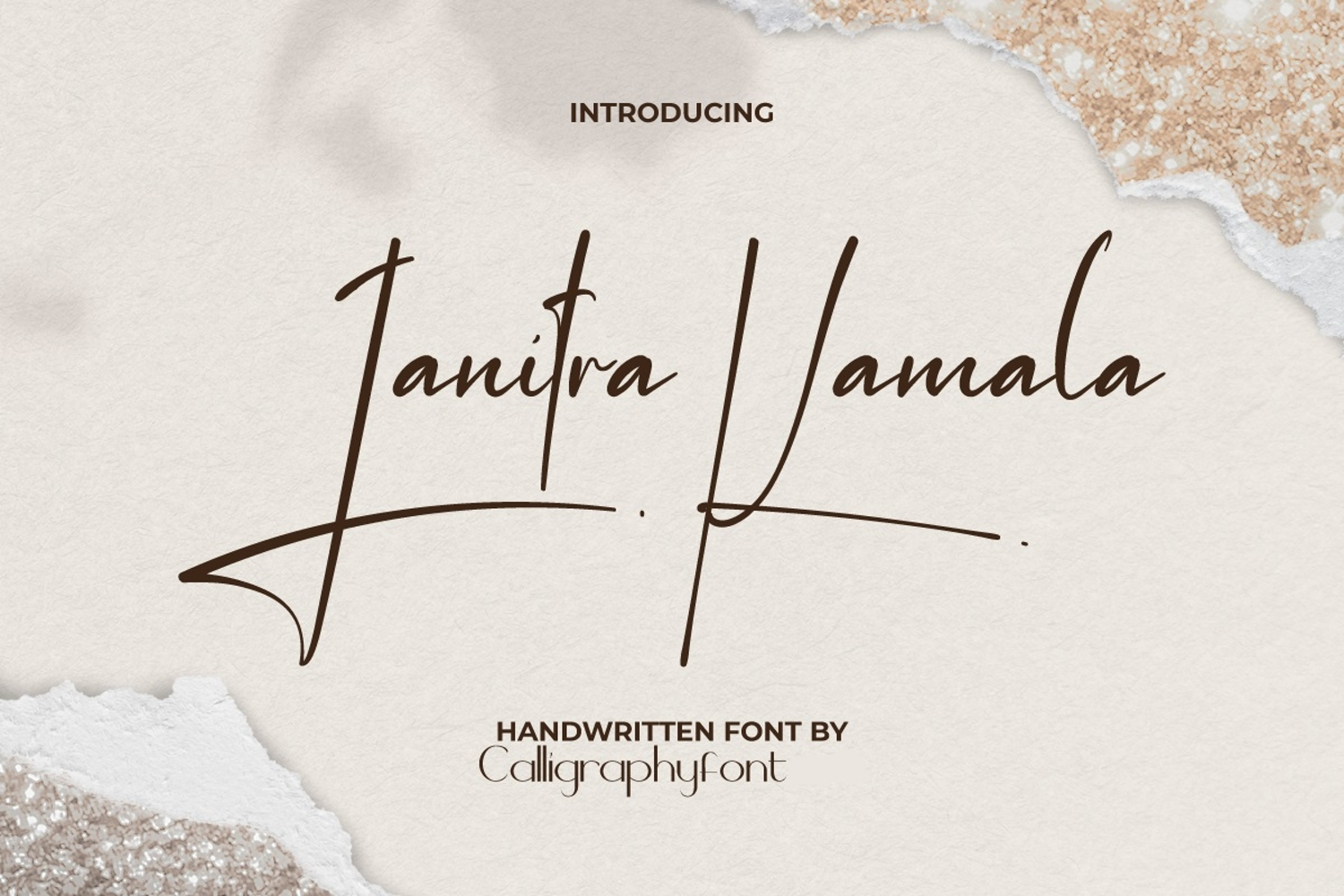
Janitra Kamala Font
Janitra Kamala Font is a casual handwriting signature font that is made thin with significant differences in the size of the letter characters. This will give a natural look to your project. It is ideal for blogs, brand logo, covers, greetings, invitations, labels, mockup stationery, signature design, postcards, quotes, stickers, titles, watermarks, websites and others.
Whether you are working on wedding invitations, branding, logos, social media graphics, packaging, greeting cards, or editorial designs, Janitra Kamala Font adds a distinctive character that captures attention instantly. Its versatility makes it ideal for romantic, classy, and luxurious themes, while still remaining highly readable and beautifully balanced.
One of the key highlights of Janitra Kamala Handwriting Font is its ability to combine sophistication with usability. Every letter has been carefully designed to look harmonious, ensuring that your text flows naturally. This makes it a perfect choice for designers, entrepreneurs, and creatives who want to make their work stand out.
Not only is Janitra Kamala Handwriting Font visually stunning, but it is also highly functional. You can easily pair it with minimalist sans-serif fonts for a modern look or use it as a standalone headline font for bold statements. The font comes with a full set of uppercase, lowercase, numbers, punctuation, and special characters, giving you complete creative freedom.
Janitra Kamala Handwriting Font is a charming handwritten font often inspired by the look of scripts and historical writing styles that weave each character of the letter together into one elegant connection. This font perfect for apparel, bridal boutique, cafeteria, cosmetic, fashion, florist, furniture, graphic design, handicraft, home decoration, jewelry, photography, restaurant, skincare, spa salon, wedding design and any project that requires an authentic handwritten touch.